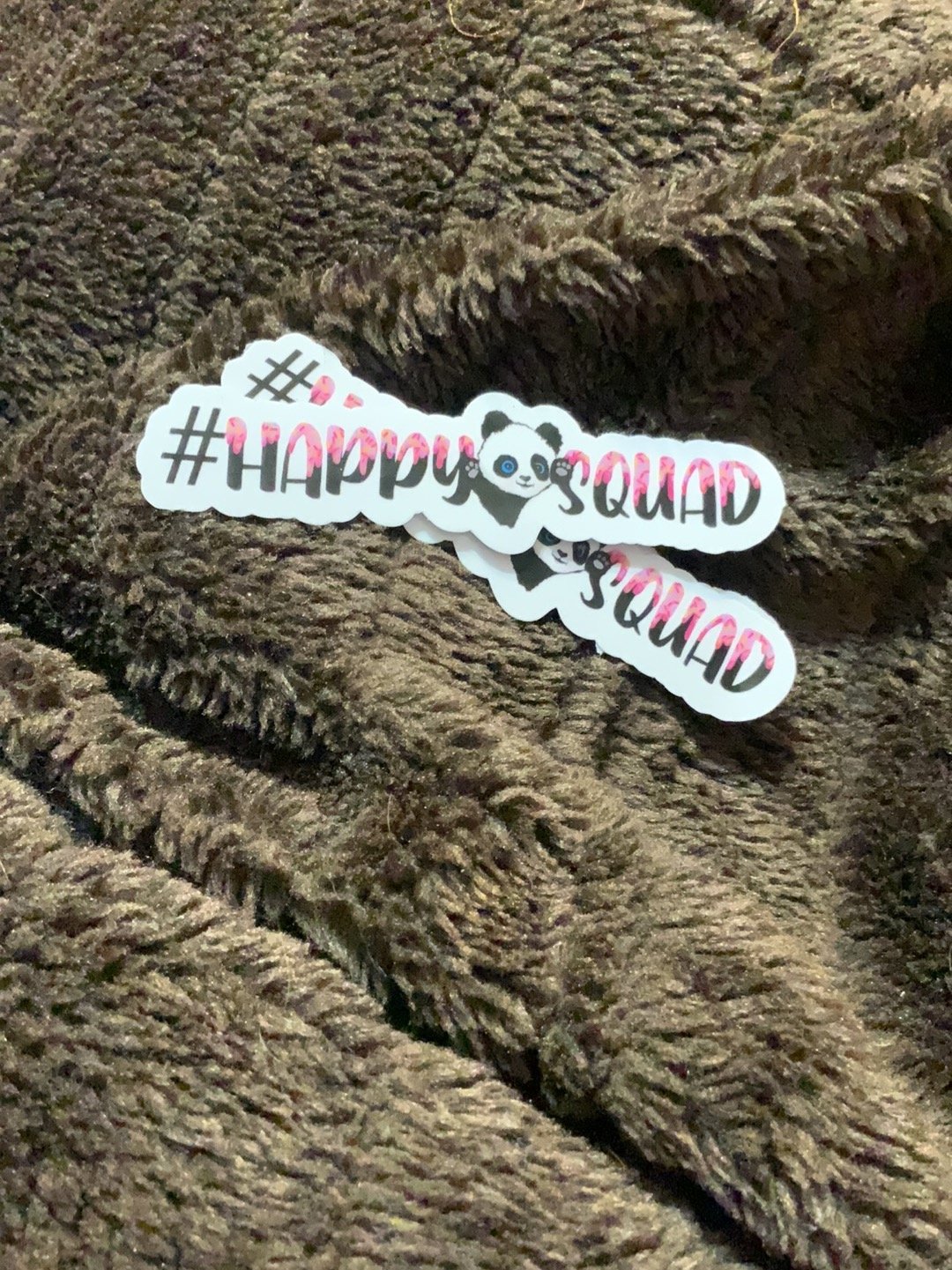
Baby Bunny example image 1
Baby bunny is a fun duo font, script and sans. You can also have several doodle vectors are also available in this font package. In the font script also has several alternative swash so it looks beautiful and unique. Let's create something beautiful today!